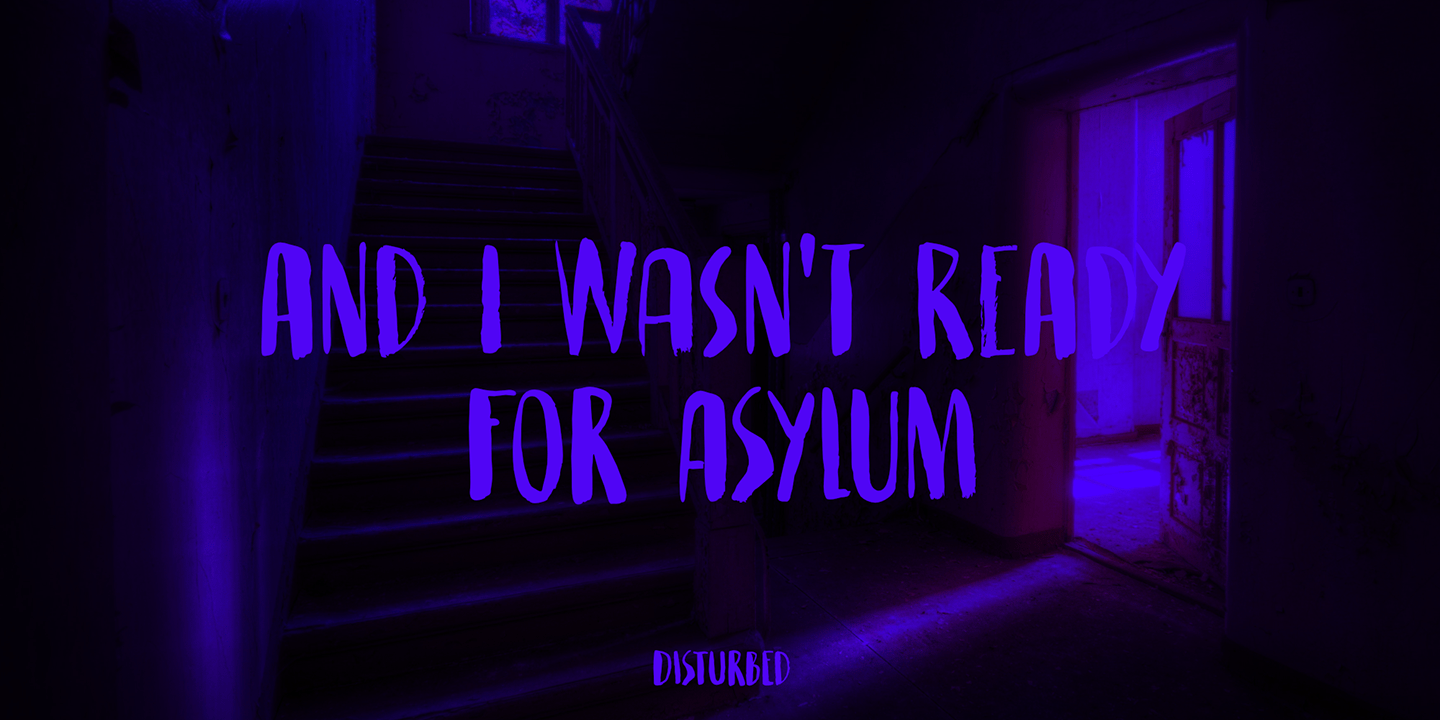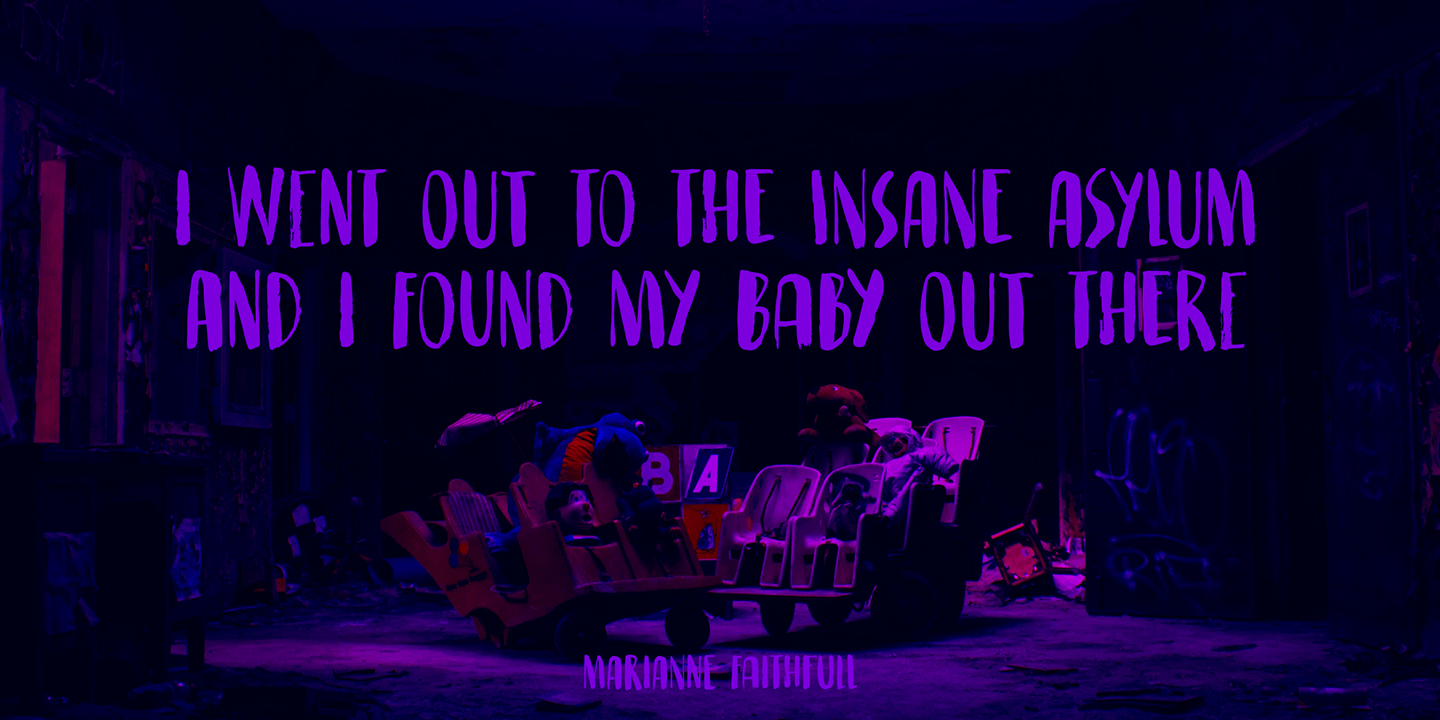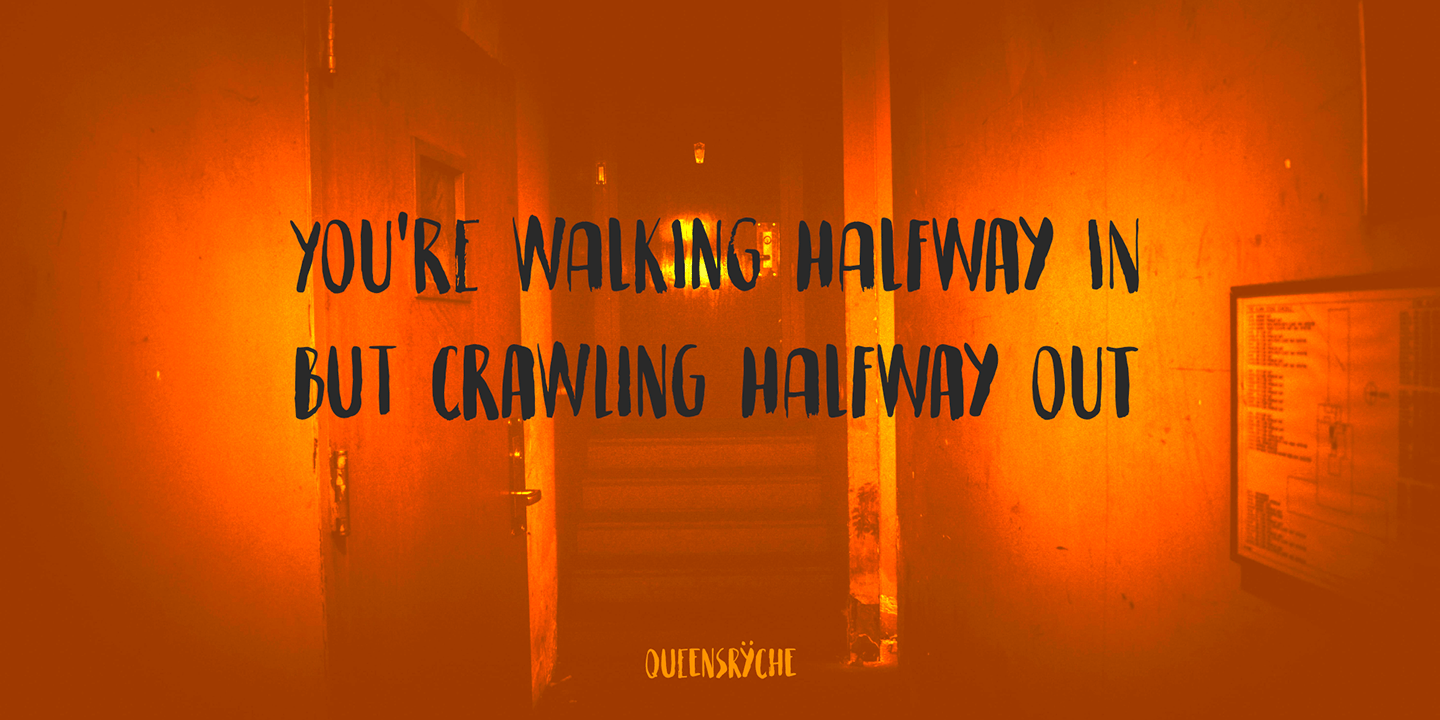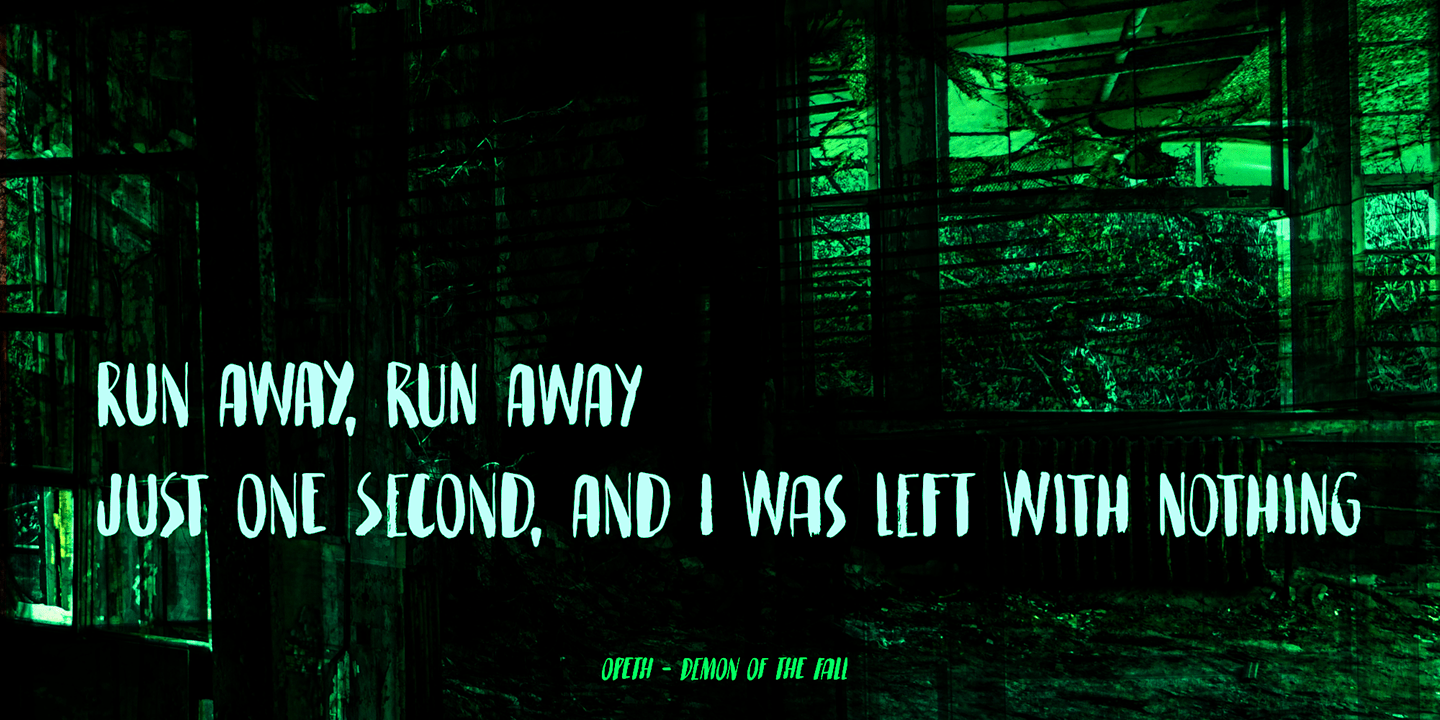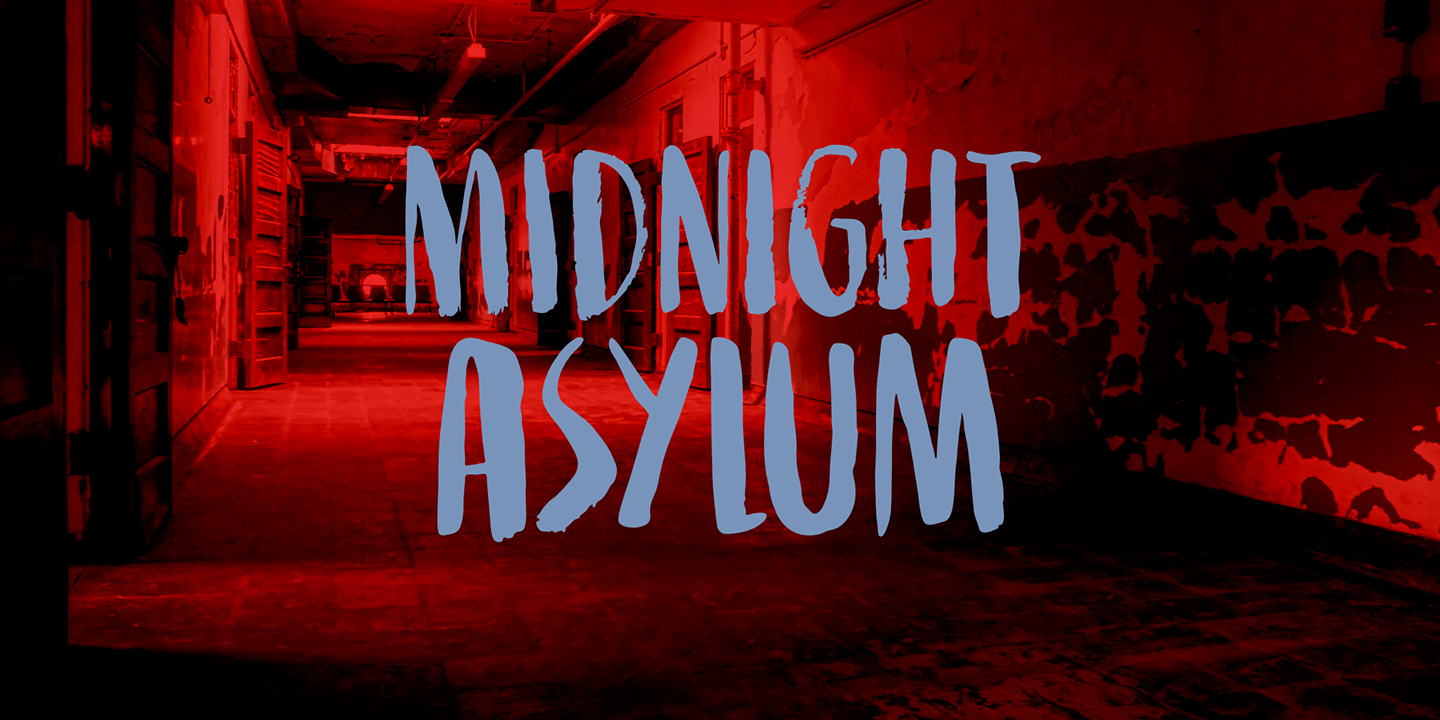
Midnight Asylum
About Midnight Asylum
I have no fantastic story on how I came up the name to share with you. I am currently not in an asylum, nor will I be in the near future. I also finished this font way before midnight, so it is just a crazy name for a scary looking font! Midnight Asylum…